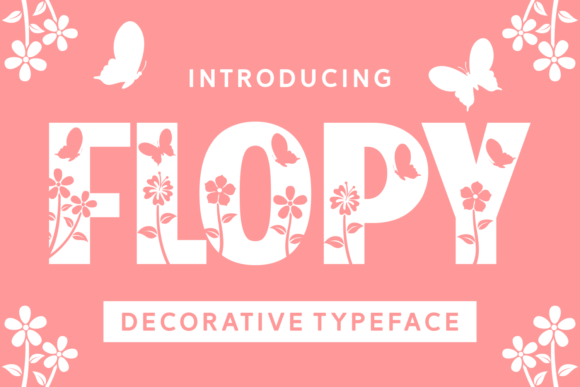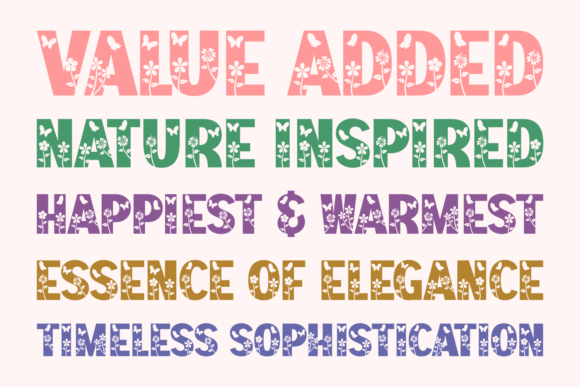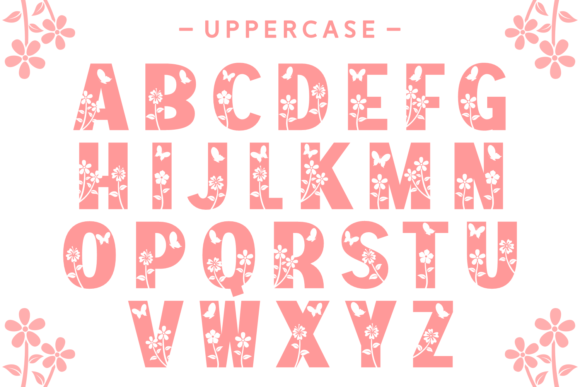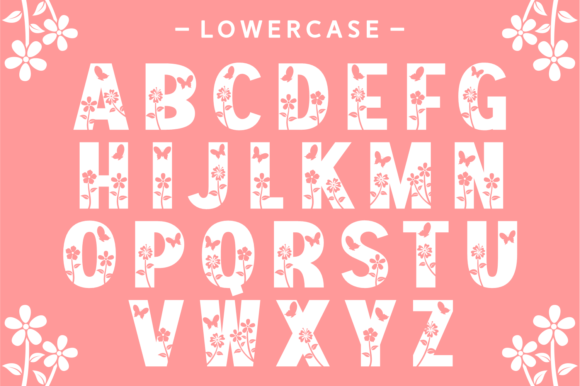
Flopy Font: A Playful Decorative Font for Cute Spring & Easter Designs
About the Flopy Font
Welcome to the world of Flopy Font, a typeface that will inspire your next great project. Flopy is a playful and spring-inspired decorative font. You can see beautiful butterflies and flowers inside all character’s set. Set your imagination wild and create amazing Easter cards, wall art, frames, t-shirts, and logos.
Flopy’s playful nature makes it ideal for projects requiring a lighthearted touch, such as children’s books, invitations to spring events, or branding for companies focused on nature-related products. It excels in headlines, short text blocks, and decorative elements within larger designs. However, its decorative style is less suitable for body text or UI applications where legibility over extended periods is crucial.
Consider pairing Flopy with a clean sans-serif like Open Sans for a balanced contrast, or a more delicate script font such as Great Vibes for a cohesive, whimsical feel. For a more modern approach, a geometric sans-serif such as Montserrat could provide a strong, contemporary counterpoint.
Flopy’s overall personality is cheerful and whimsical, making it a great choice for brands that wish to project a friendly, approachable image. Avoid using it where a sophisticated or serious tone is required.